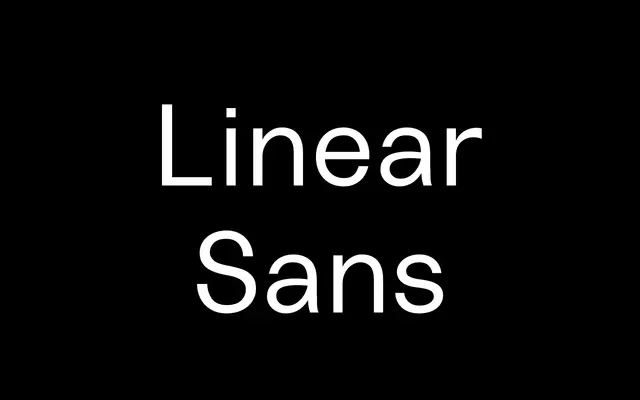
Linear Sans
A 14-style neo-grotesque drawing on 1950s Swiss International Style, tempered with a warmer finish to soften its geometric rigidity.
Built around tight apertures and geometric construction, the family runs from Light to Heavy with matching italics across seven weights. Gradient describe it as a disciplined neo-grotesque that retains the precision of Swiss modernism while avoiding the coldness often associated with that tradition. Suited to editorial, branding and UI work where a structured but approachable sans is needed.
The foundry explicitly describes it as a neo-grotesque drawing on 1950s Swiss International Style principles, with tight apertures and geometric construction typical of that tradition.